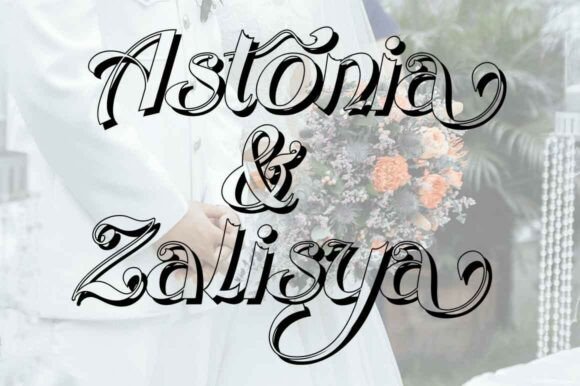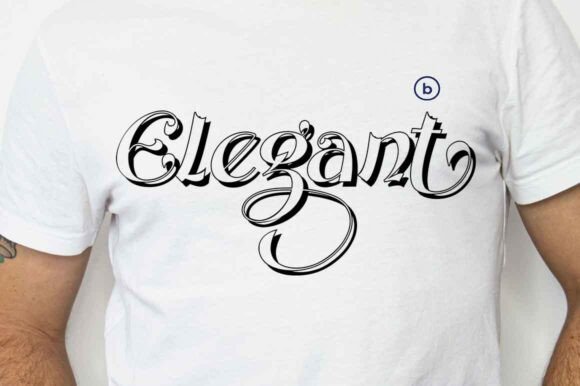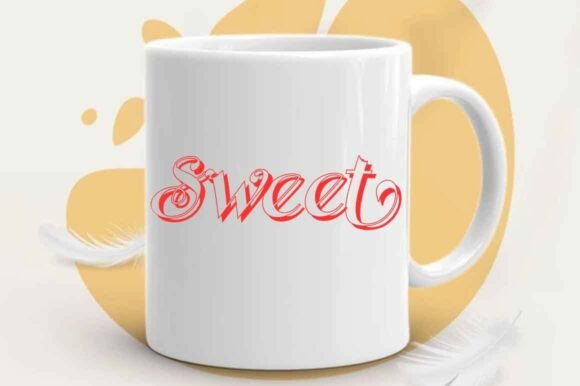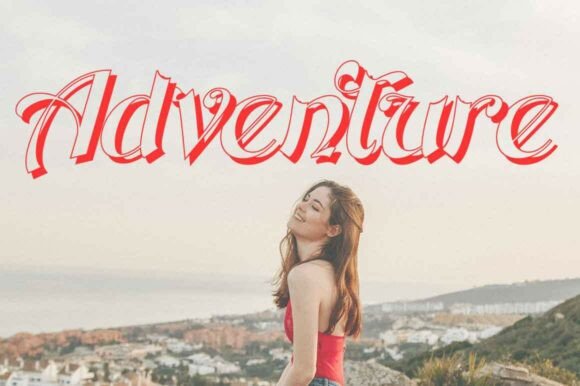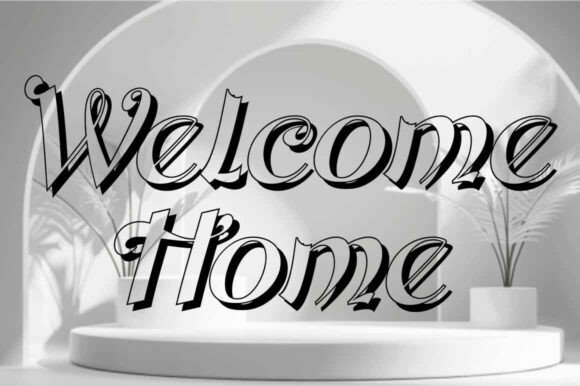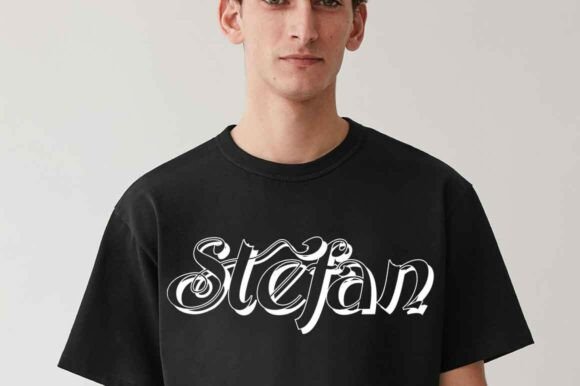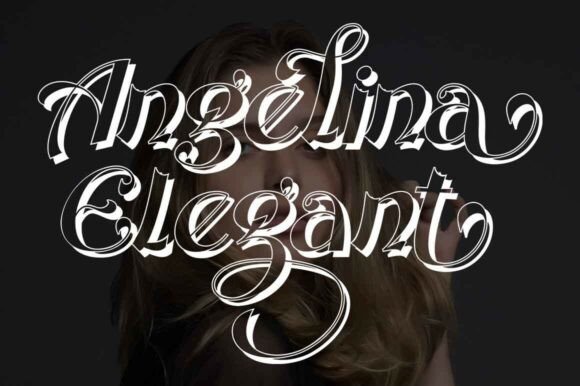
The Quest for Elegance: Discovering Angelina Elegant Font
I still remember the design project that led me to discover Angelina Elegant Font. I was working on a luxury brand’s invitation suite, and my client was adamant about finding the perfect font that exuded sophistication and glamour. I scoured the internet, tried out countless fonts, but nothing seemed to fit the bill. That was until I stumbled upon Angelina Elegant Font. Its smooth, clean, and graceful letterforms immediately caught my attention, and I knew I had found the one.
- ✨ Elegant and refined design that adds a touch of luxury to any project
- ✅ Highly legible, making it perfect for body text and headlines
- 💫 Luxurious letter connections and flowing curves that create a sense of sophistication
- 🎨 Alternative styles and stylistic variations that offer flexibility and creativity
- 🤔 Some users may find the font too ornate for certain projects, such as casual or playful designs
- ⚠️ Limited use of uppercase letters, which may require creative workarounds
The Designer Inspiration Behind Angelina Elegant Font
Angelina Elegant Font was designed with the goal of creating a modern, elegant, and refined script font that combines the beauty of classic decorative copperplate with a modern touch. The designer, inspired by the works of classic calligraphers, aimed to create a font that would be both timeless and versatile. With its smooth, clean, and graceful letterforms, Angelina Elegant Font is perfect for designers looking to add a touch of luxury and sophistication to their projects.
| What is the language support for Angelina Elegant Font? | Angelina Elegant Font supports multiple languages, including English, French, German, Italian, and more. |
| Is Angelina Elegant Font suitable for body text? | Yes, Angelina Elegant Font is highly legible and suitable for body text, making it perfect for long-form content, articles, and books. |